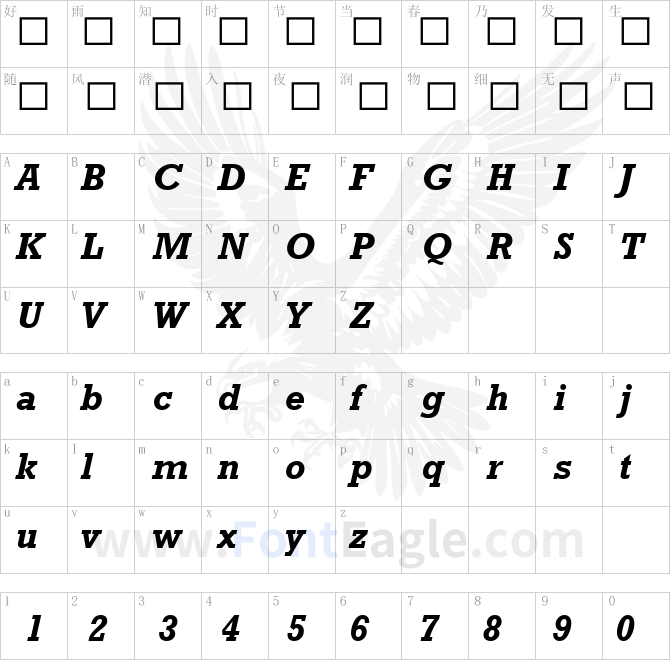
Rockwell MT BoldItalic.ttf Font Image
Rockwell MT BoldItalic.ttf Base Font Information
- Font name:Rockwell MT
- Font Subfamily ID:Monotype – Rockwell MT BoldItalic
- Font Full Name:Rockwell MT BoldItalic
Rockwell MT BoldItalic.ttf Characters Sample